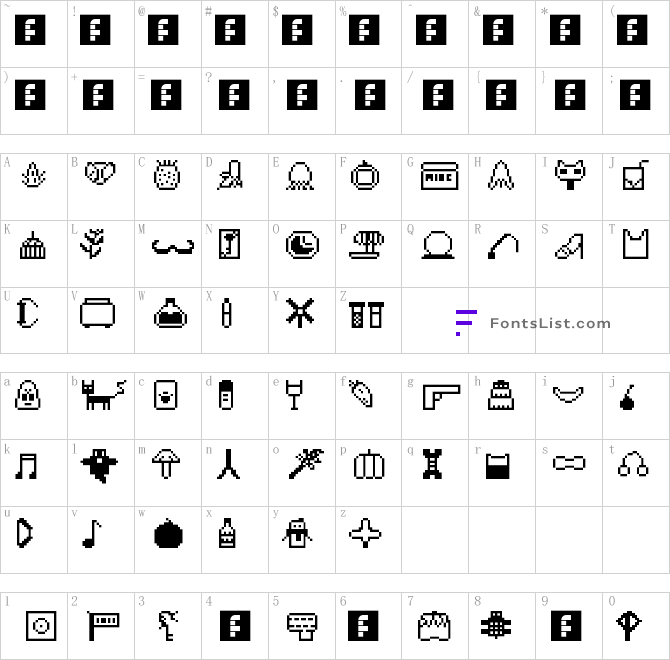
- Font Name:Aywadings
Aywadings-Regular.ttf is a very beautiful artistic font, Aywadings-Regular.ttf is widely used in the design and printing of various books and pictures,Aywadings-Regular.ttf has a strong visual impact,Aywadings-Regular.ttf is a commonly used font in newspapers, magazines and books, and is used in posters, e-commerce Poster design, store design, logo design, font design and other fields.Aywadings-Regular.